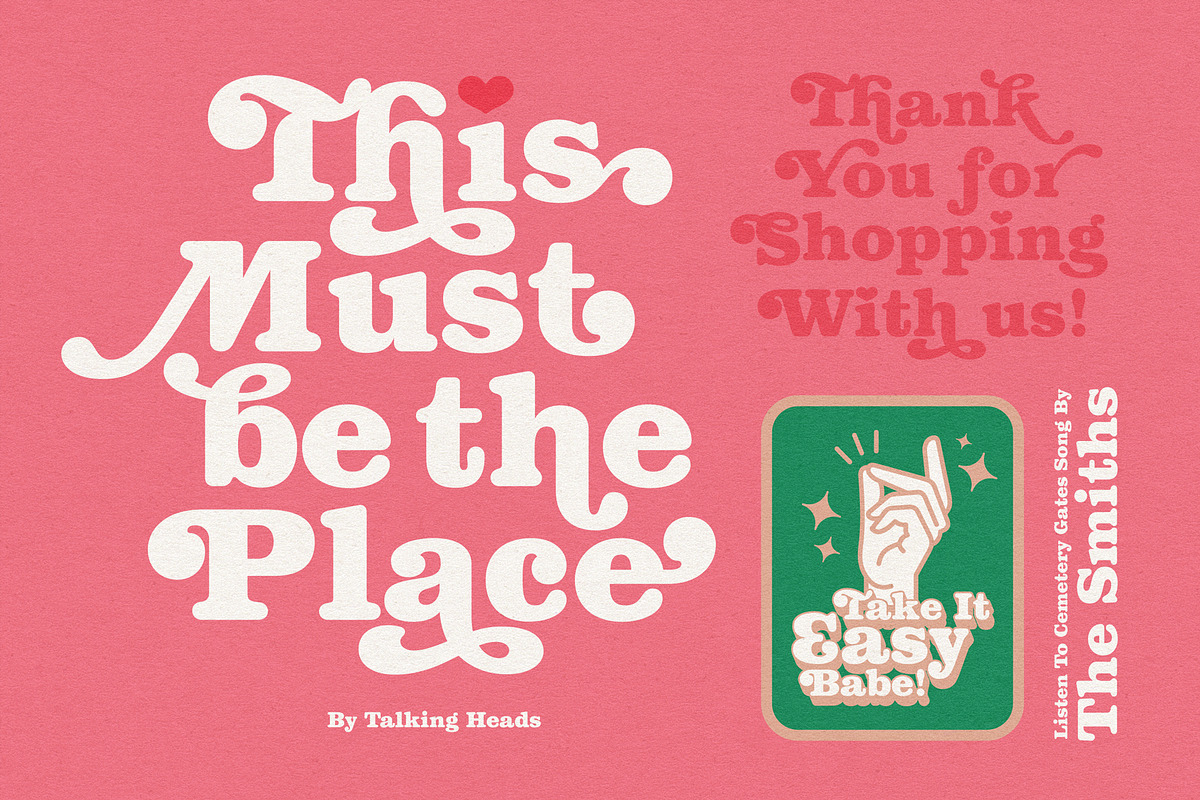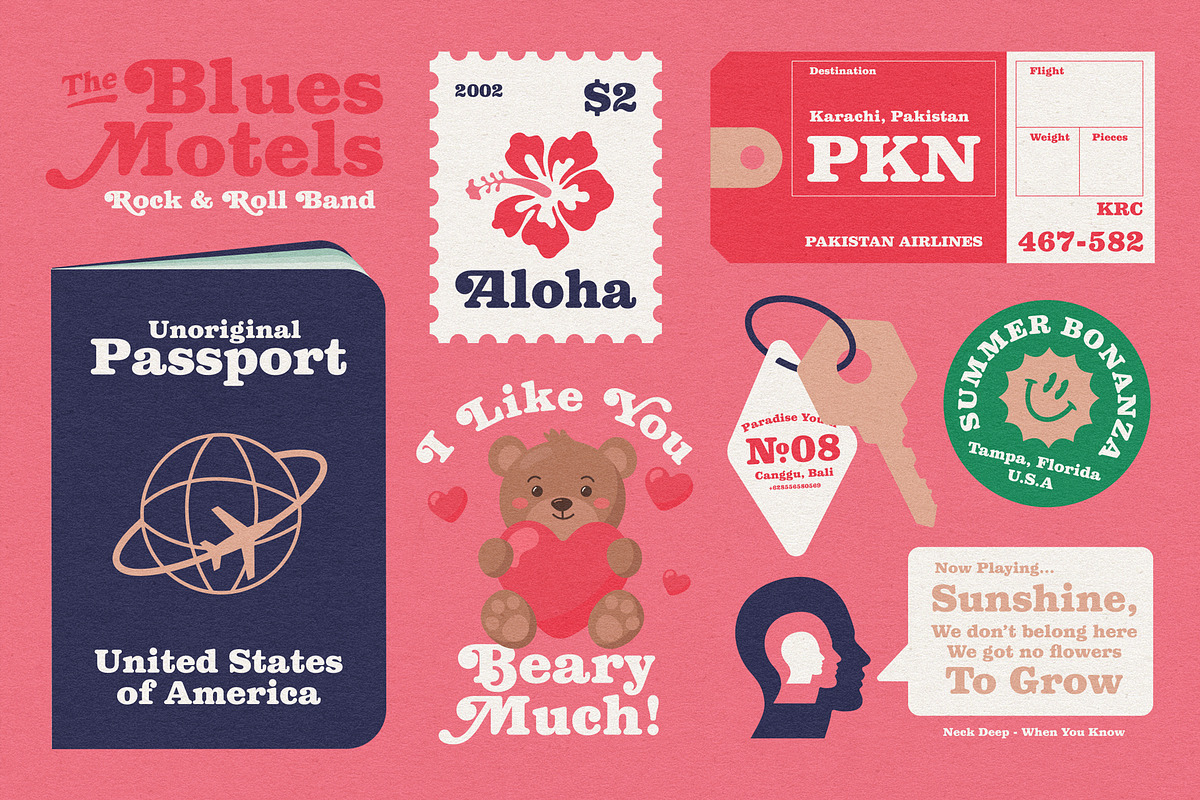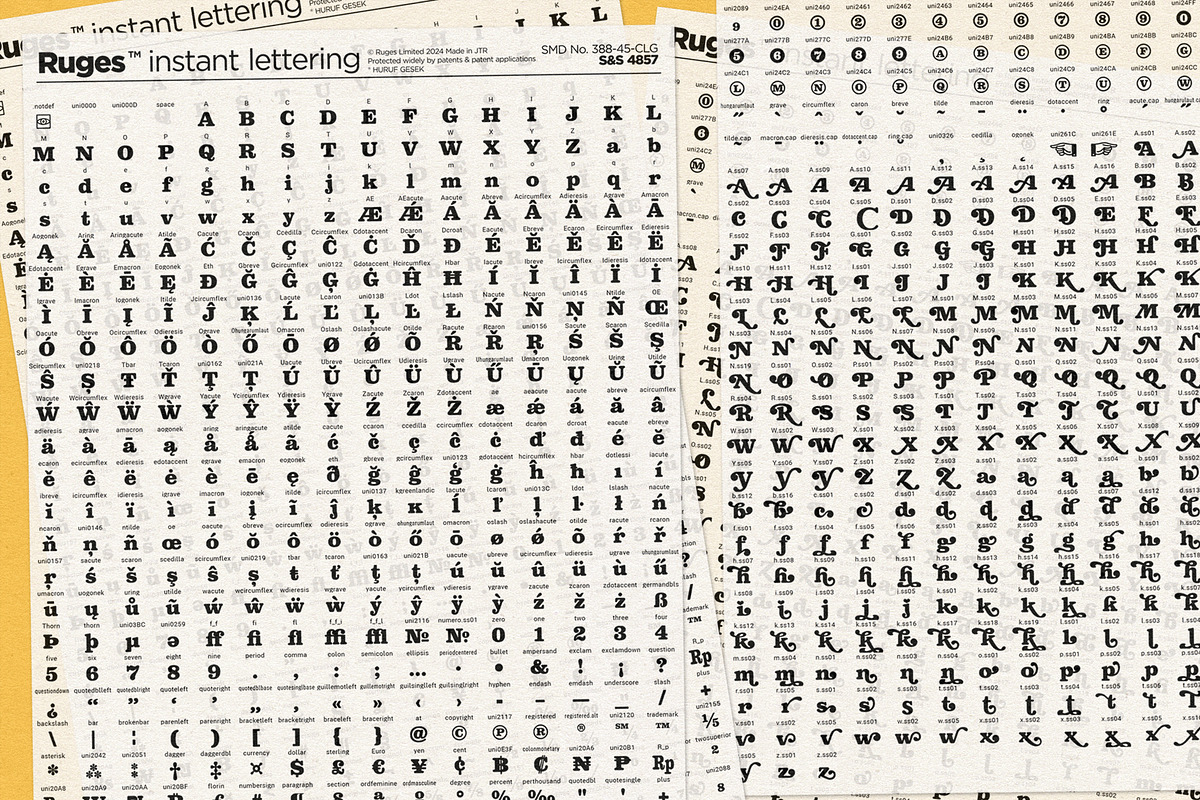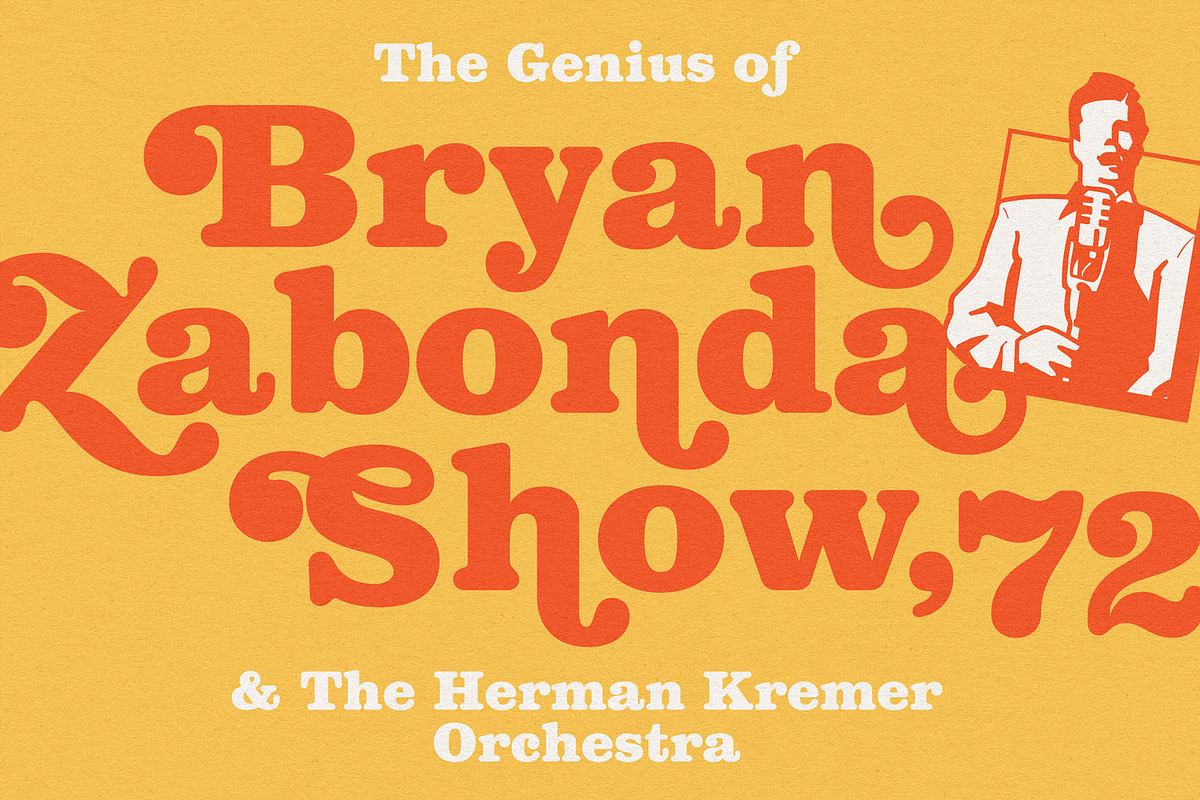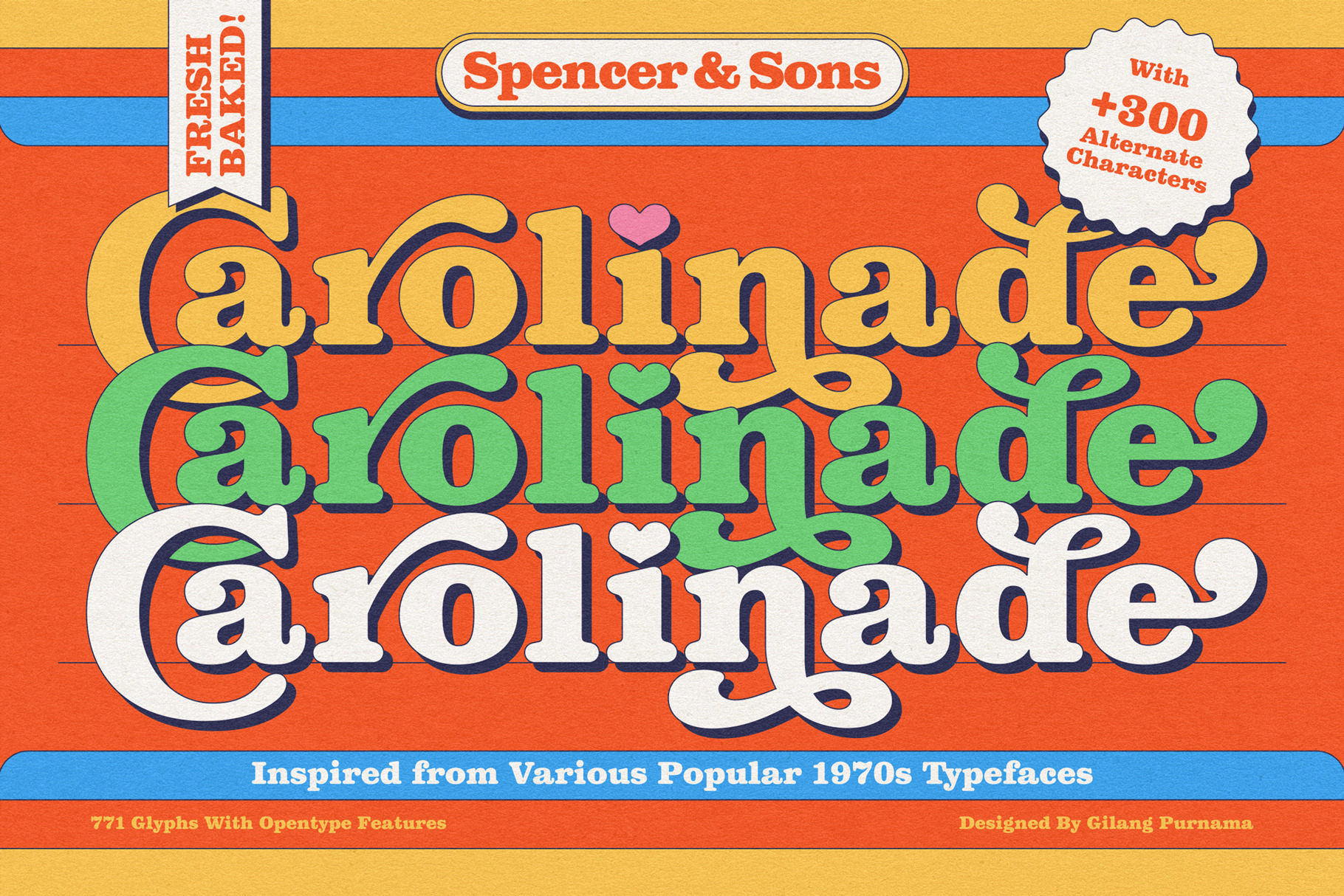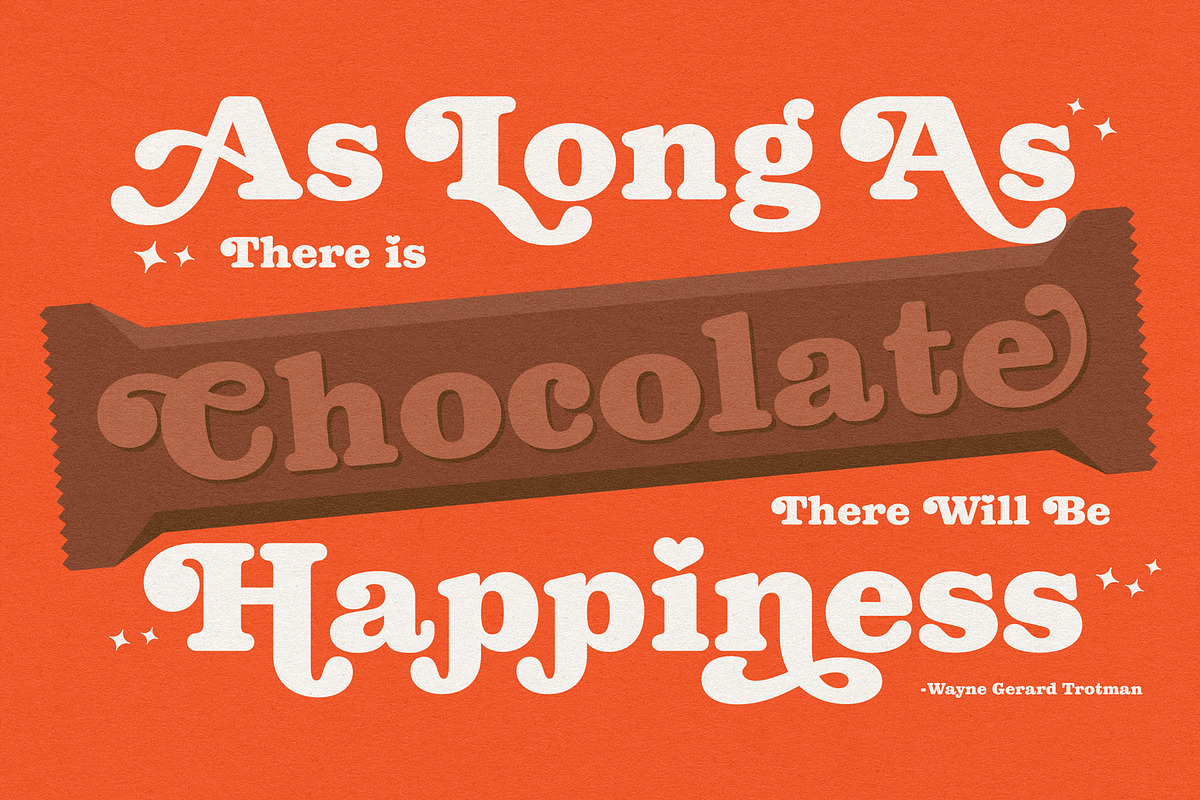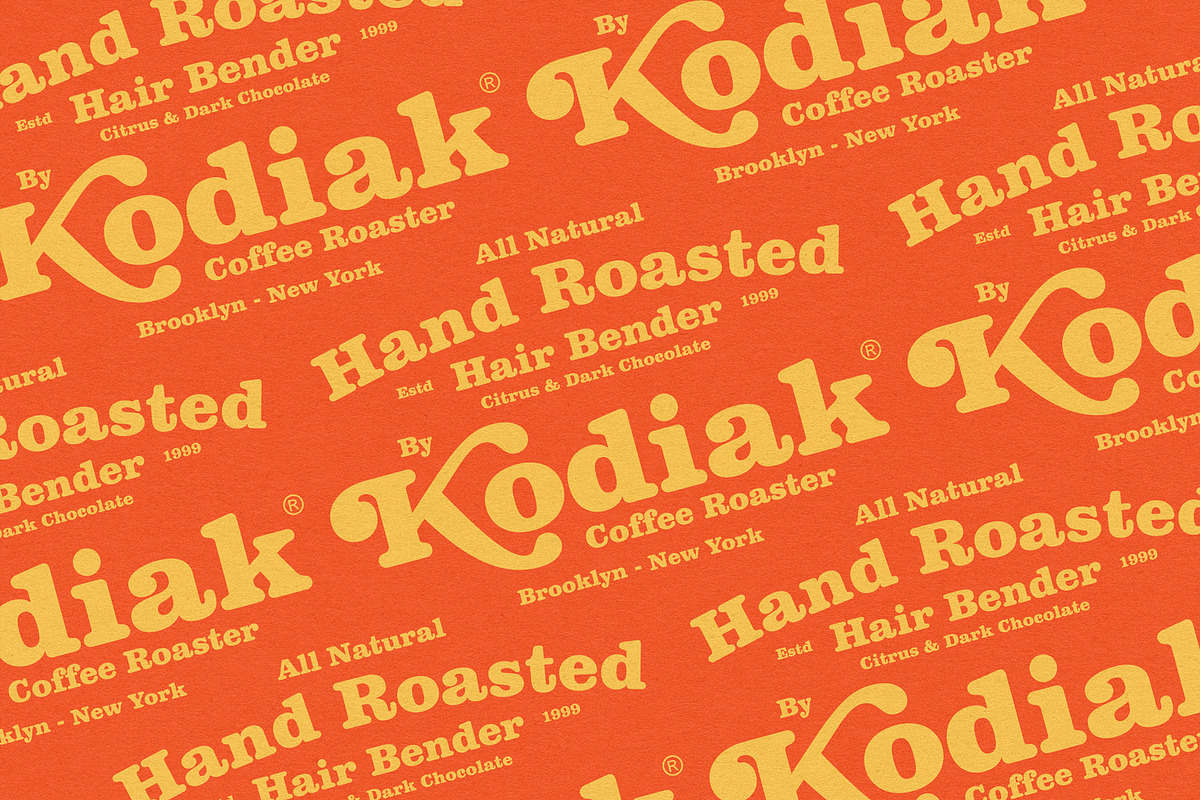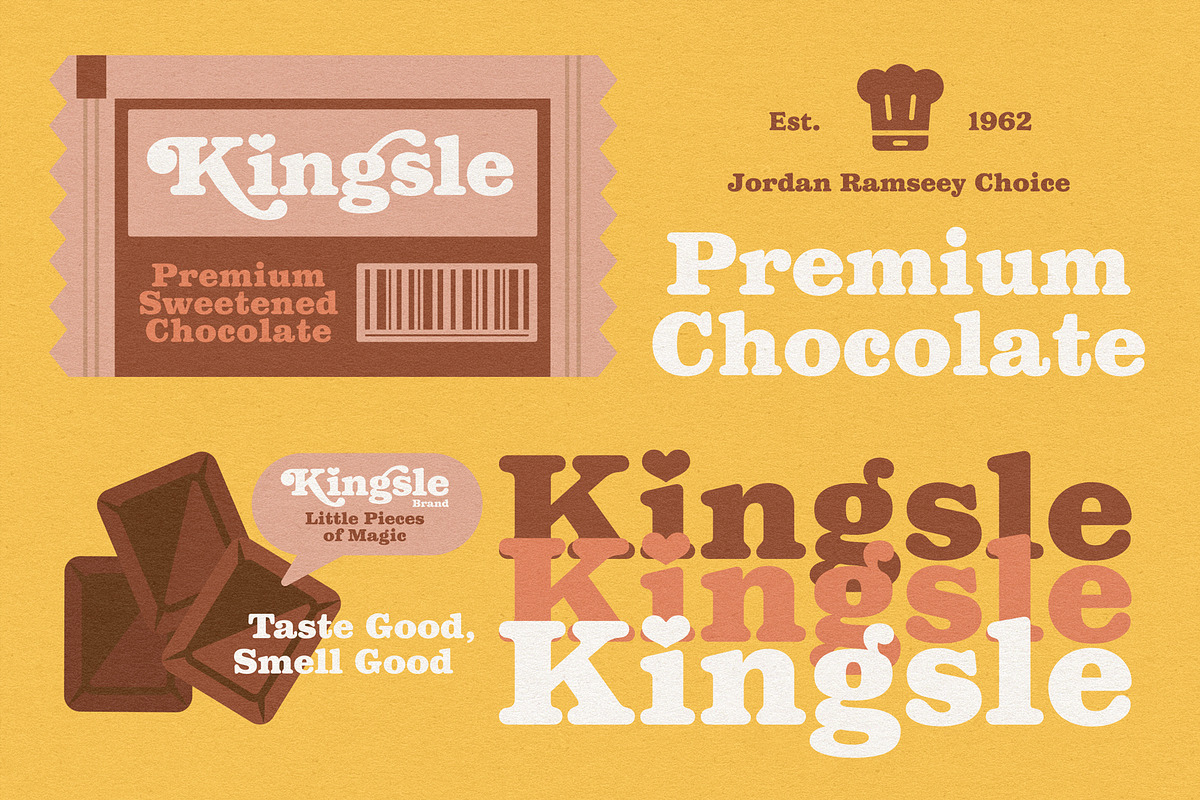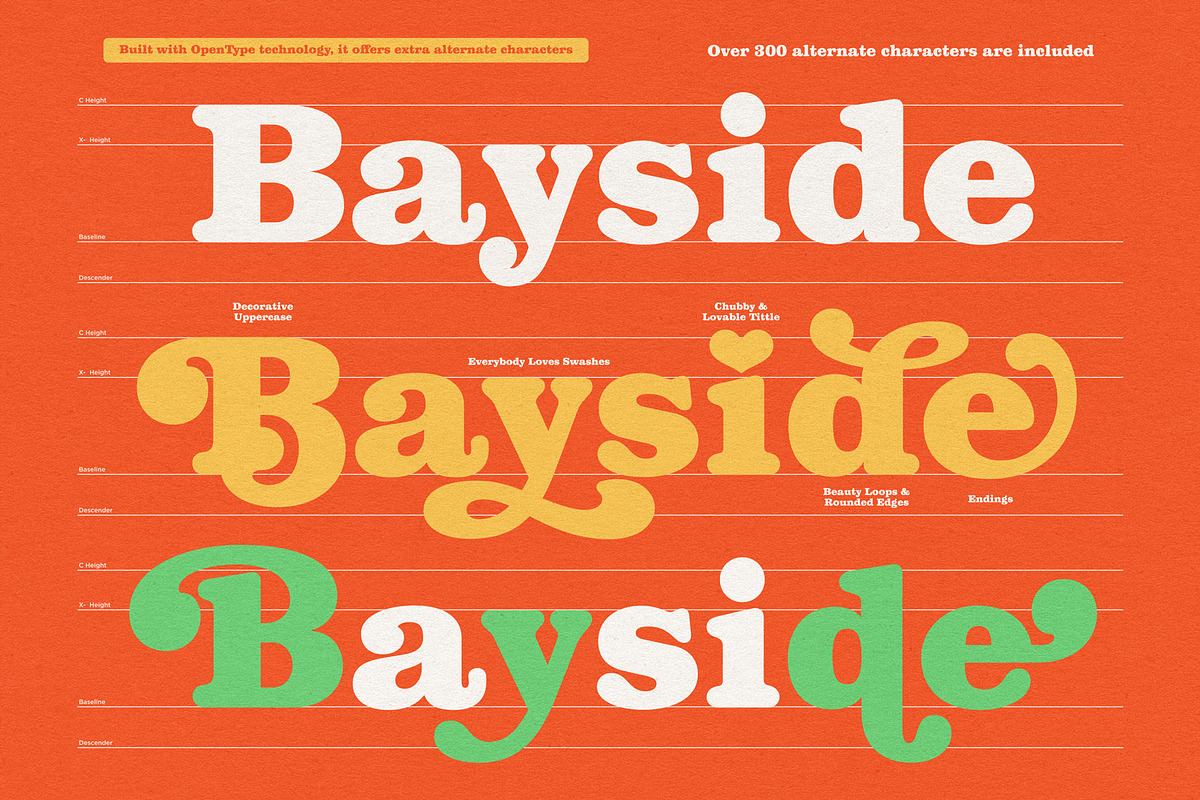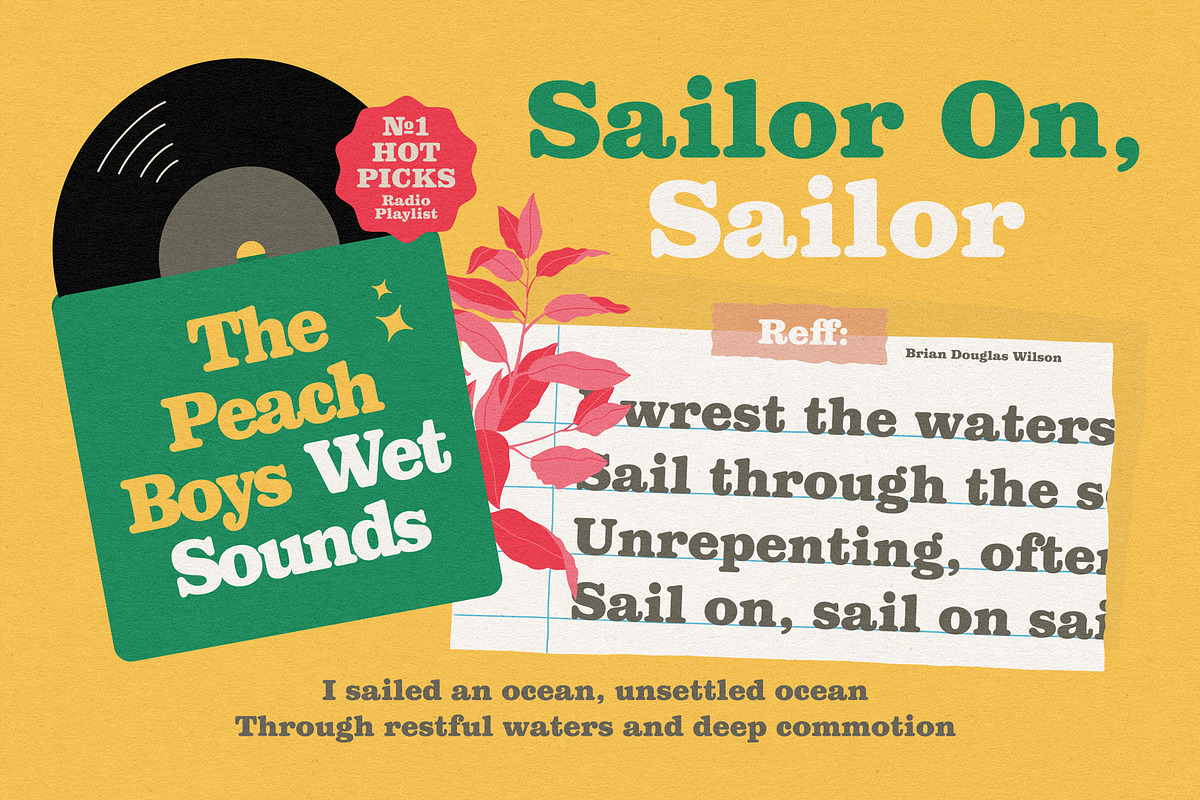
Carolinade - Retro 70s Font
Introducing Carolinade, where nostalgia meets contemporary charm in the world of typography. Our captivating display rounded serif font brings the iconic styles of the 1970s and 80s into the modern age. With over 300 alternate characters, Carolinade is not just a font; it's a journey through the timeless elegance of "Clarendon" and the lovable charm of "Cooper."